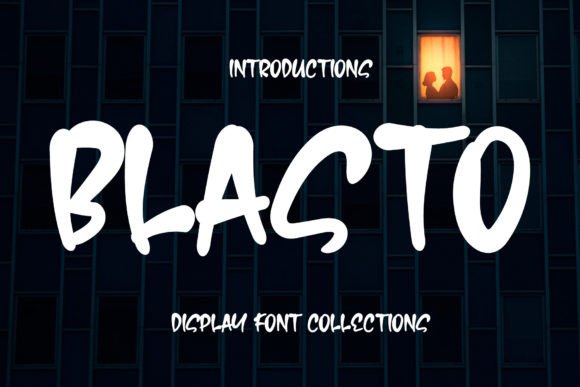
The Blasto Font: A Fun and Cute Decorative Font for Crafters
I’ll never forget the moment I stumbled upon the perfect font for my craft project. I was working on a custom design for a client’s handmade wedding invitation, and I was determined to find a font that would make it stand out. After hours of scouring the internet, I finally came across Blasto Font. It was love at first sight! 💕
Blasto is a fun and cute decorative font that’s perfect for crafters. Its playful and whimsical design adds a touch of personality to any creative project. In this article, I’ll share my honest review of Blasto Font, provide a practical guide on how to use it, and explore similar fonts and alternatives.
• Unique and playful design that’s perfect for crafty projects 🎨
• Easily readable, even at smaller font sizes 📚
• Supports OpenType features, glyphs, and stylistic alternates 🤩
• Perfect for titles, headings, and decorative text 📝
• Limited use for body text due to its decorative nature 📝
• May not be suitable for formal or professional projects ⚠️
• Some characters may not work well in certain design contexts 🤯
Blasto Font was designed with crafters and creative hobbyists in mind. The designer wanted to create a font that would add a touch of personality and whimsy to handmade projects and DIY designs. Inspired by playful and fun designs, Blasto Font is the perfect addition to any crafty project.
Q: What is Blasto Font best used for?
Blasto Font is best used for titles, headings, and decorative text in crafty projects, DIY designs, and creative hobbies.
Q: Is Blasto Font suitable for body text?
No, Blasto Font is not suitable for body text due to its decorative nature. It’s best used for titles, headings, and decorative text.